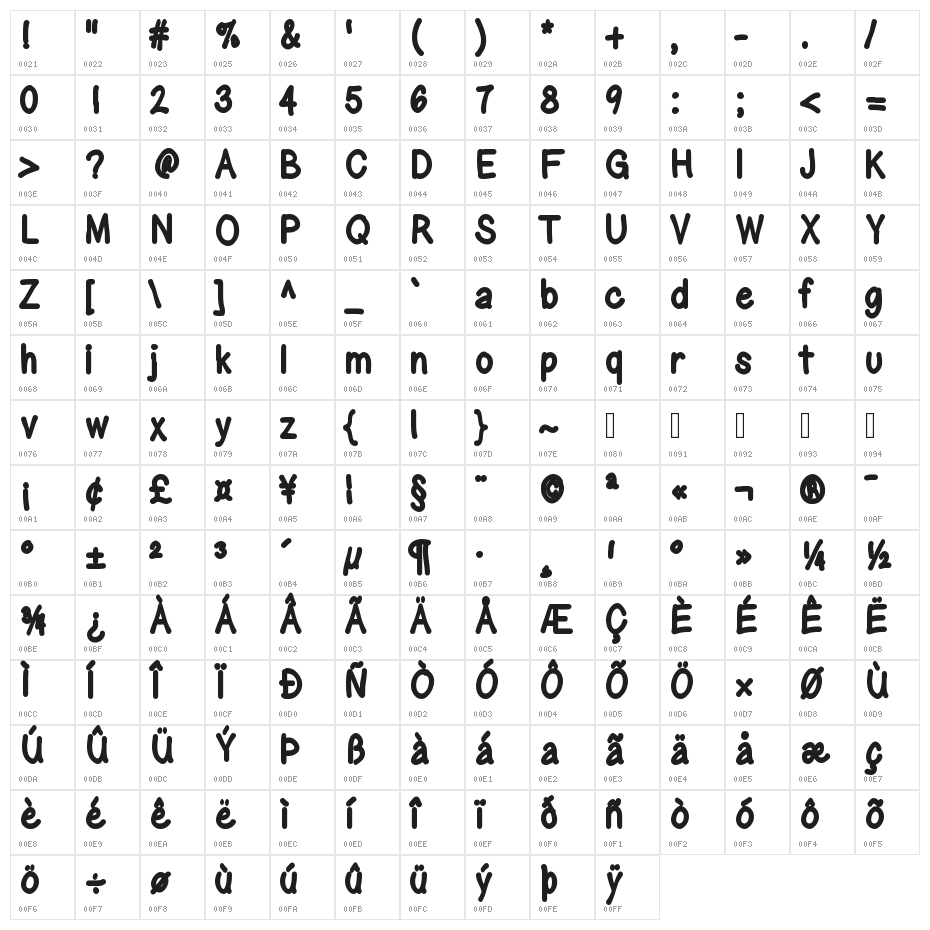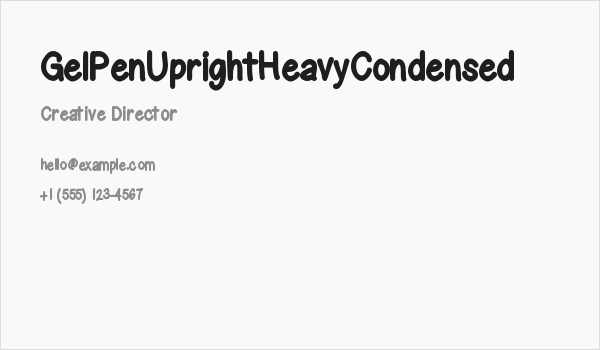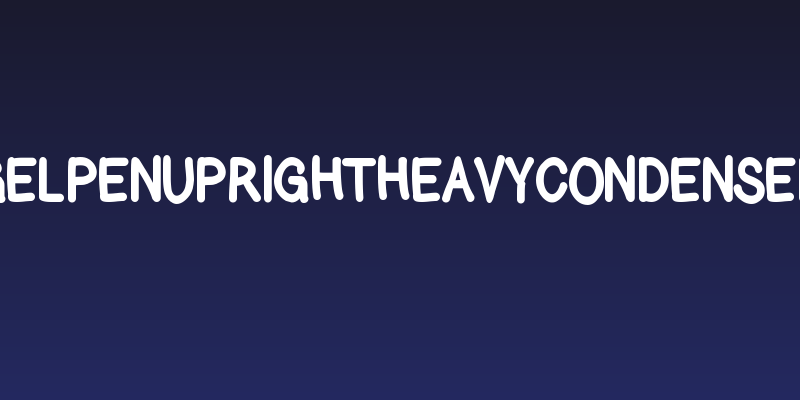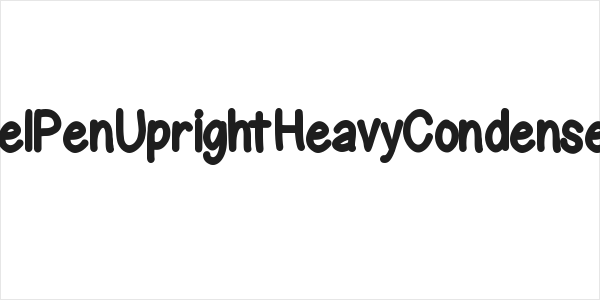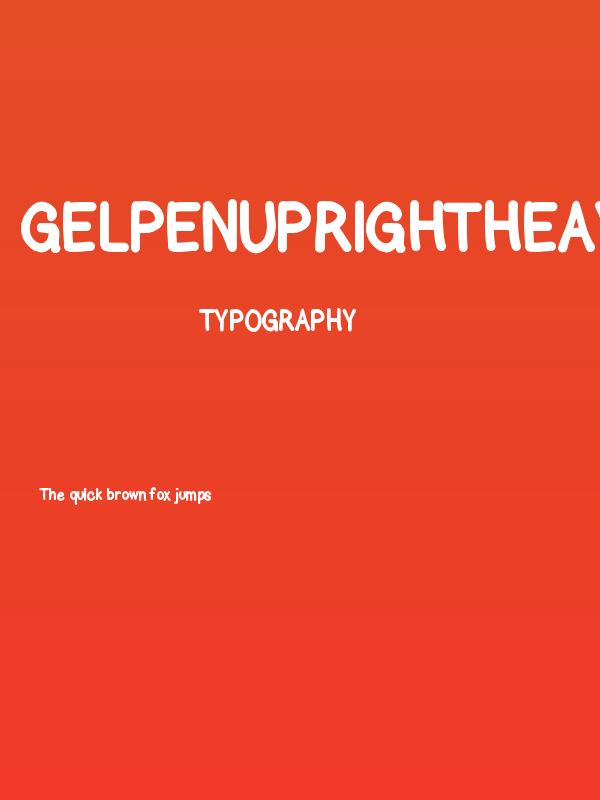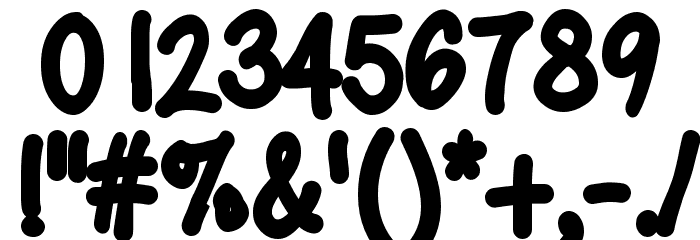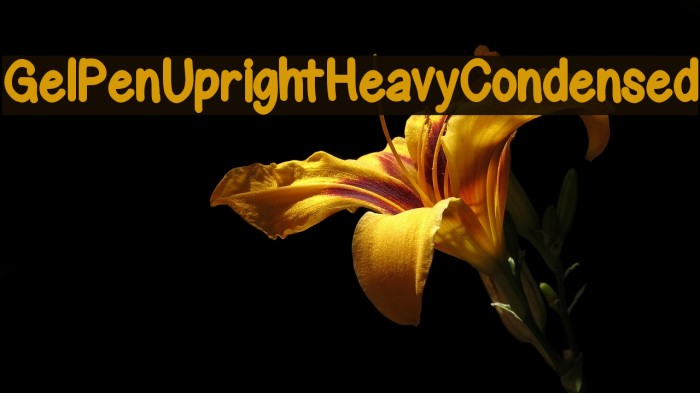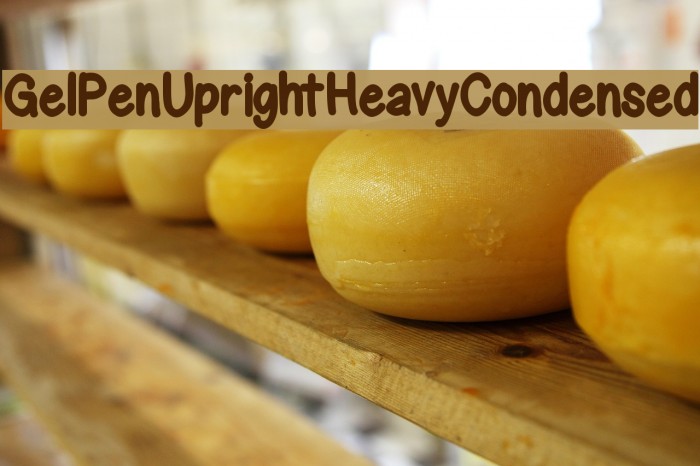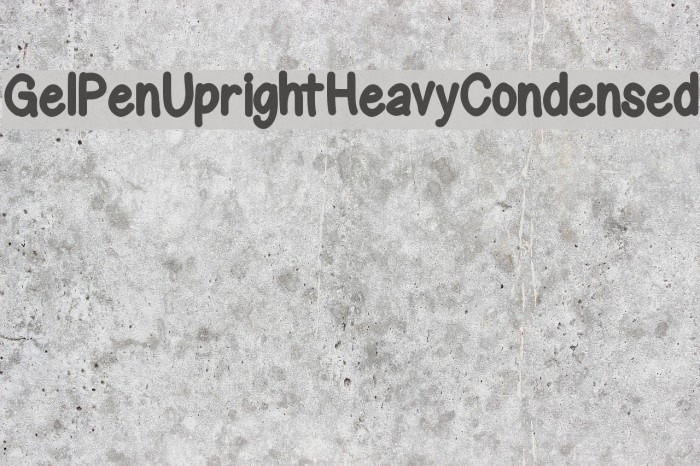
GelPenUprightHeavyCondensed Font
GelPenUprightHeavyCondensed Description
This font features a bold and playful style with a handwritten appearance. The characters are rounded and thick, giving a sense of heaviness and solidity. The condensed nature of the font allows for efficient use of space, making it suitable for headlines or titles where impact is desired. The uppercase and lowercase letters maintain a consistent style, with smooth curves and a slightly informal feel. Numbers and special characters are designed to match the overall aesthetic, ensuring a cohesive look across different types of content.
| Proposed Projects | Ideal for children's books, playful branding, posters, and creative projects requiring a fun and bold typeface. |